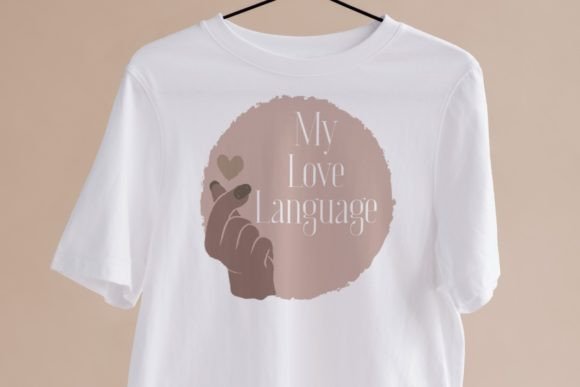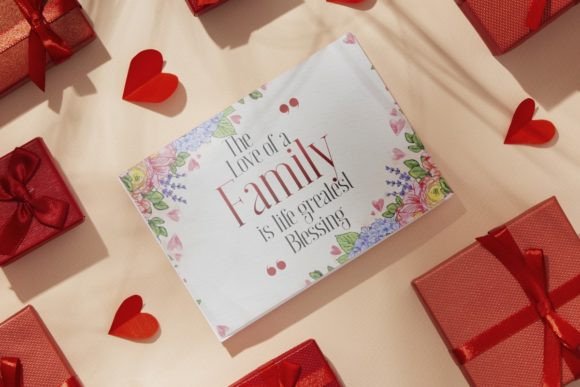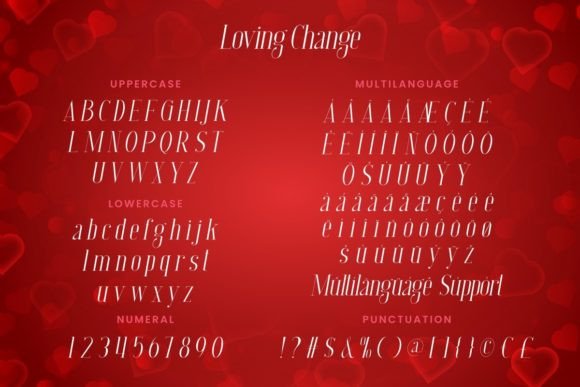
Introduction to Loving Change Font Font
Fonts play a crucial role in design, and the Loving Change Font font is a typeface that brings both character and versatility to any project. Whether you’re working on a branding project, a website, or a print design, the Loving Change Font font offers a unique style that can elevate your work.
Loving Change Font is a modern serif font with a classy look.
This font is suitable for any creative project such as a banner, brand logo, design packaging, greeting card, heading, labels, poster, quotes, stationery, t-shirt, tote bag design, and more PUA Encode Characters means you can access all the glyphs and other characters easily (open with Character Map on Windows and Font Book on MAC).
Key Features of Loving Change Font Font
Why Choose Loving Change Font Font?
The Loving Change Font font is more than just a typeface – it’s a design tool that helps you communicate your message with style and clarity. Its unique character set and versatile design make it suitable for a wide range of applications, from elegant invitations to bold headlines.
With its carefully crafted letterforms and balanced proportions, the Loving Change Font font ensures readability and visual appeal across all mediums.
What makes Loving Change Font font special?
The Loving Change Font font stands out with its unique design, exceptional readability, and versatility across various design applications.